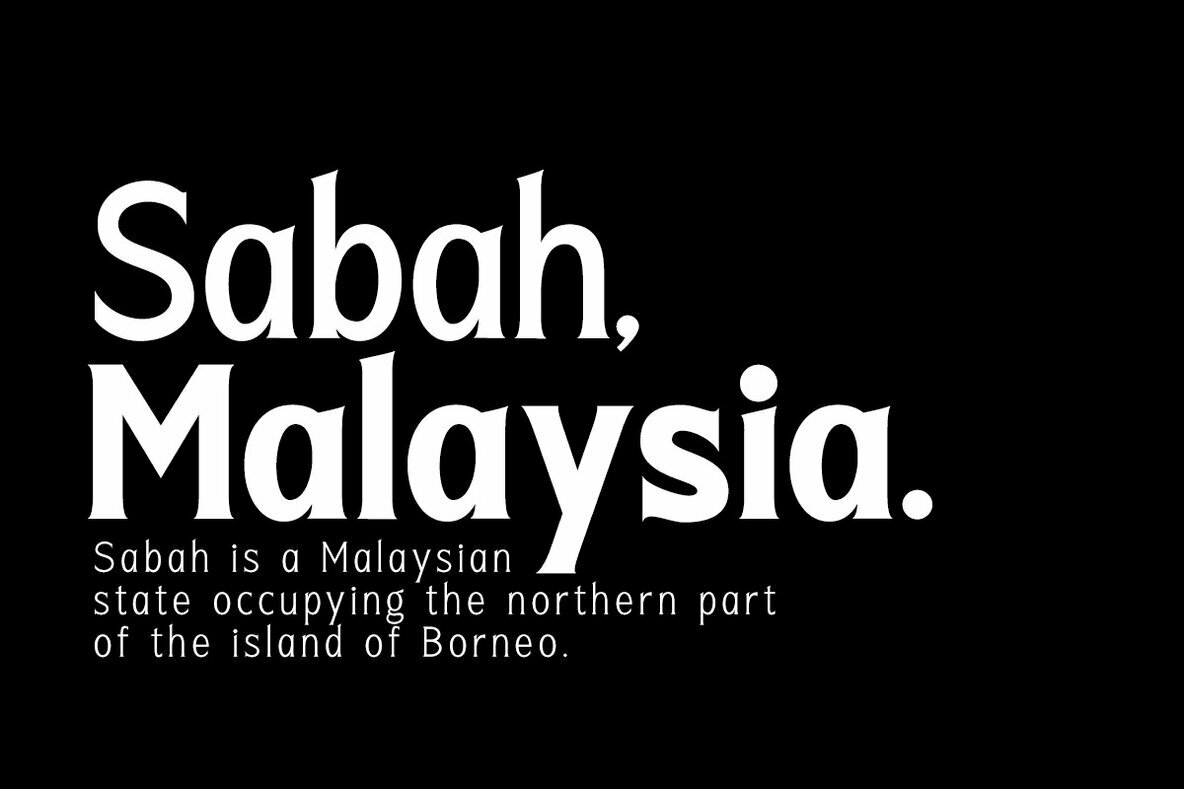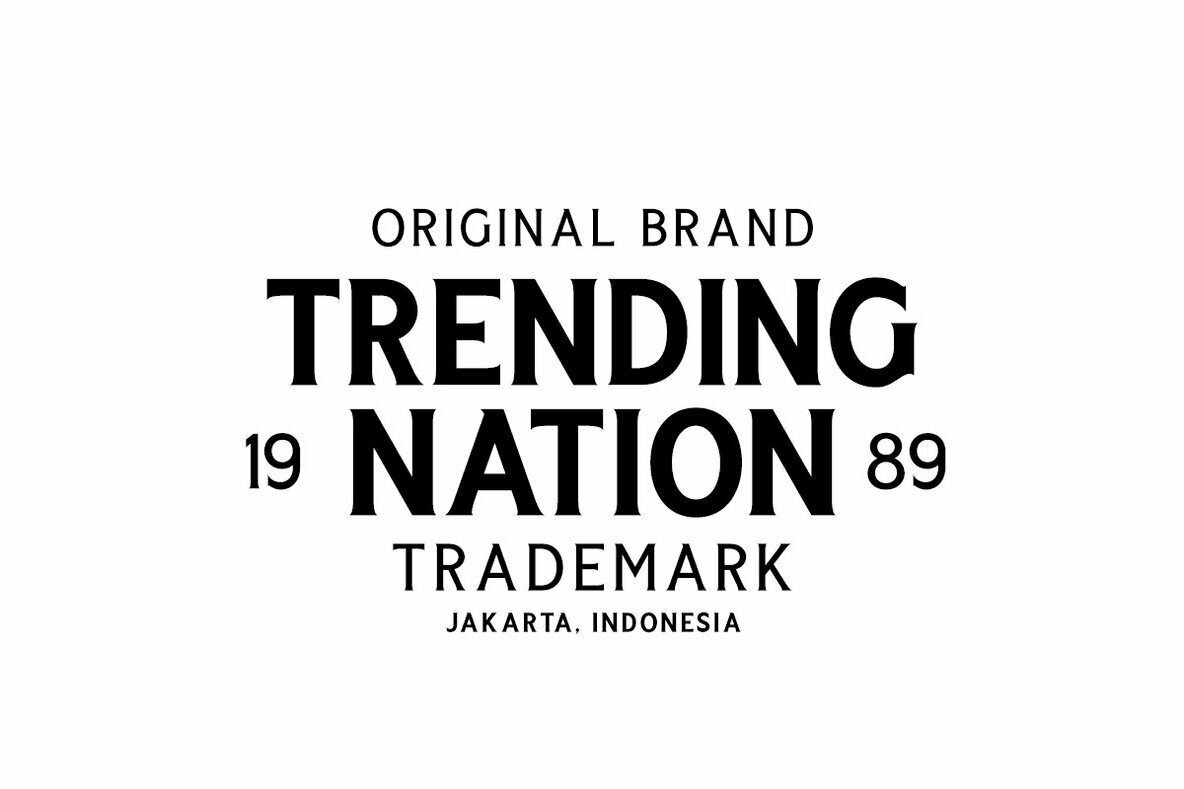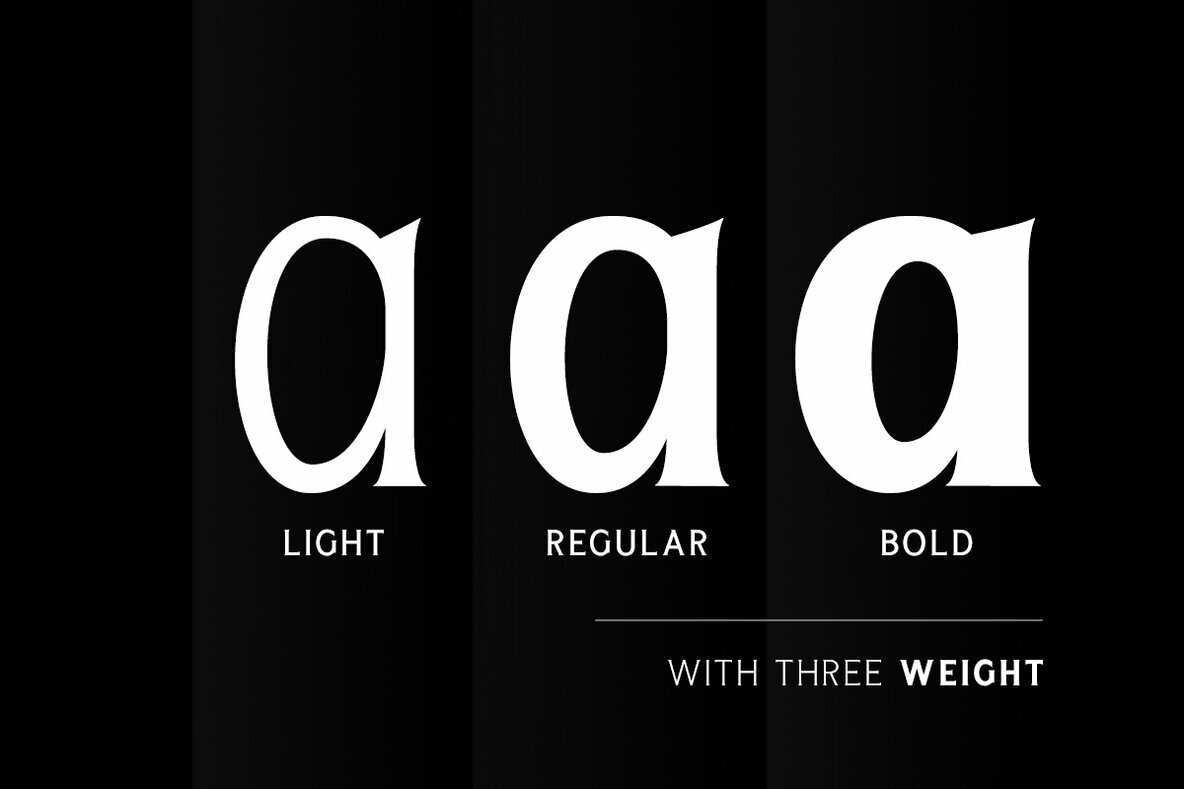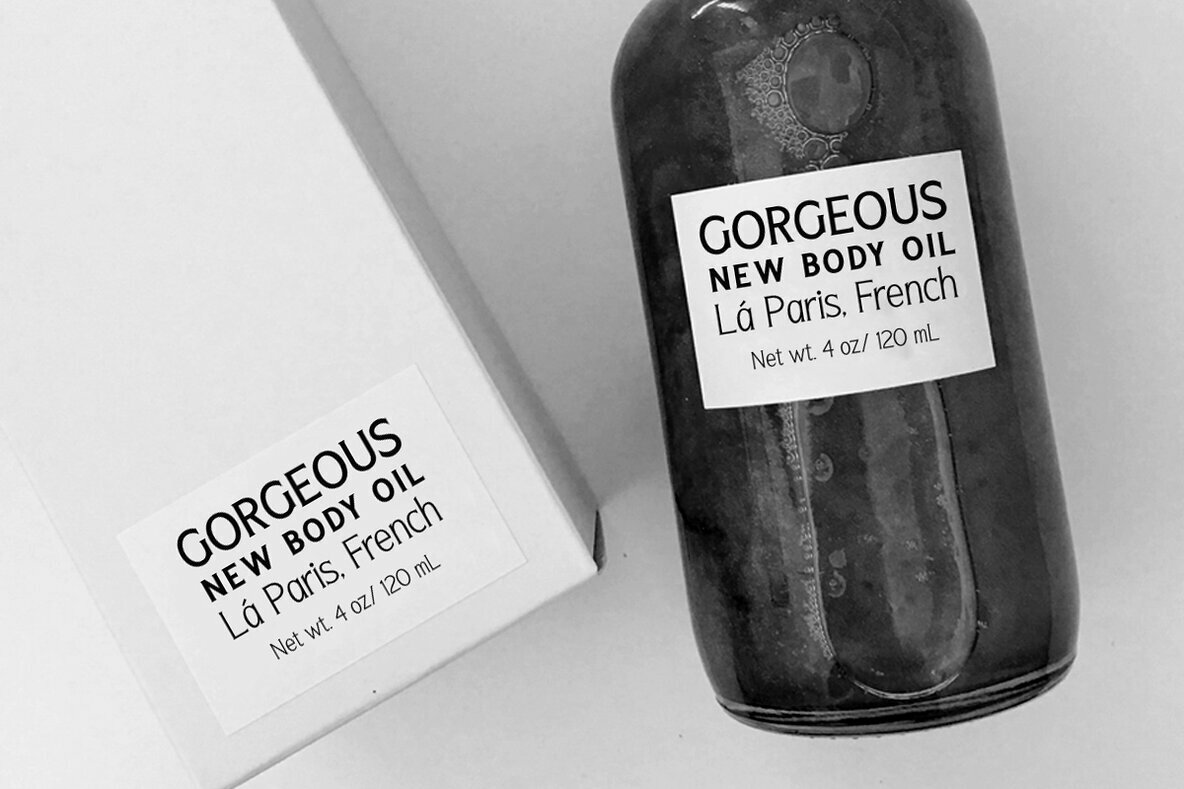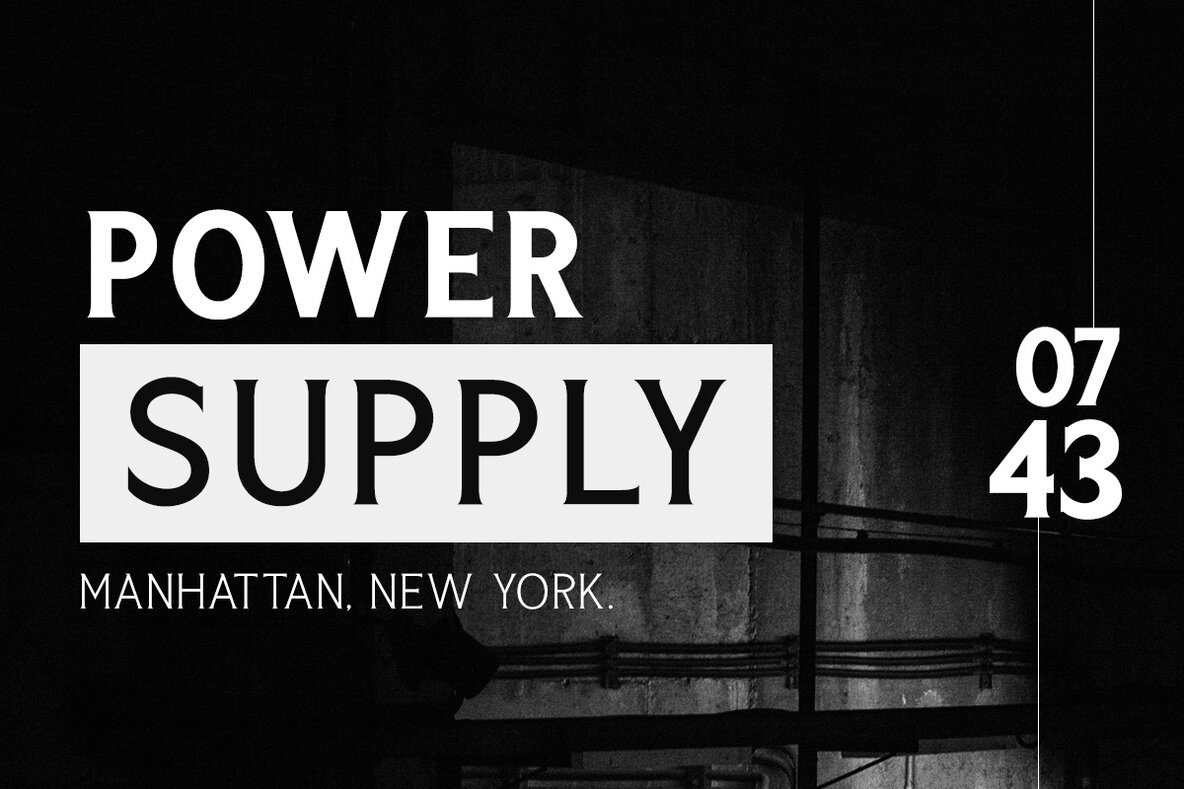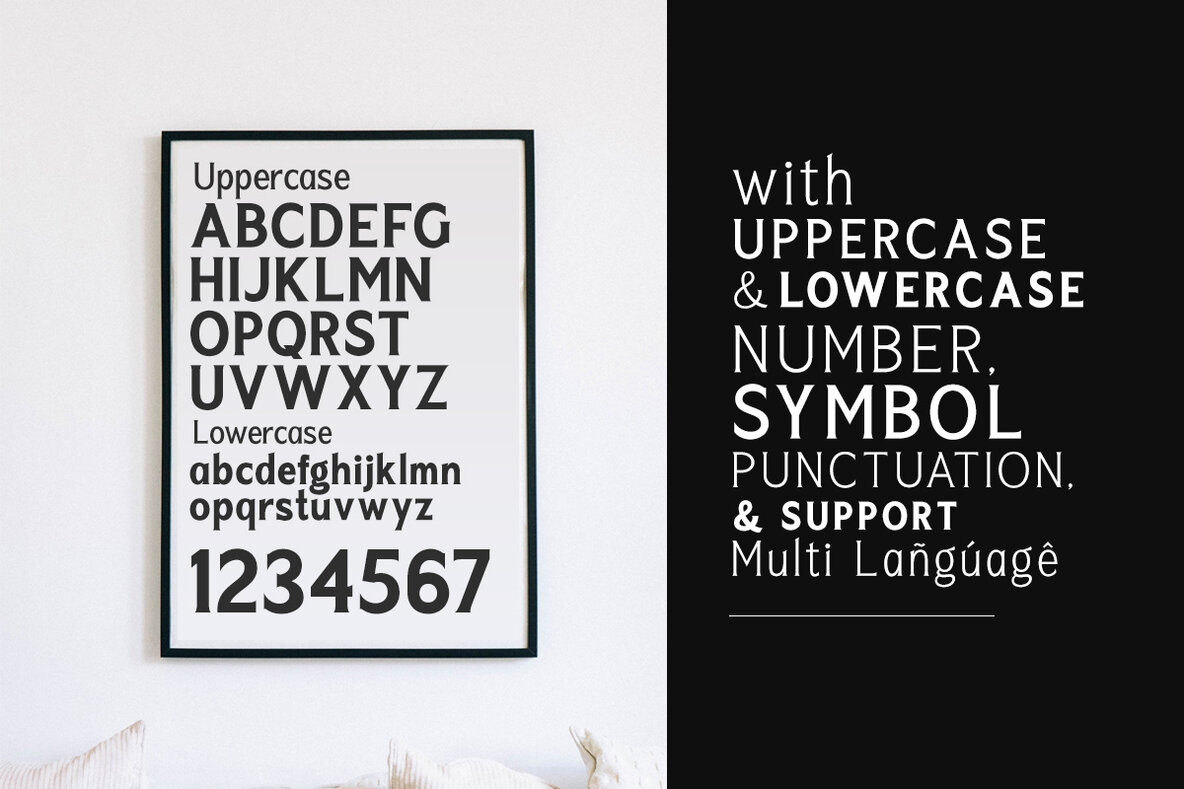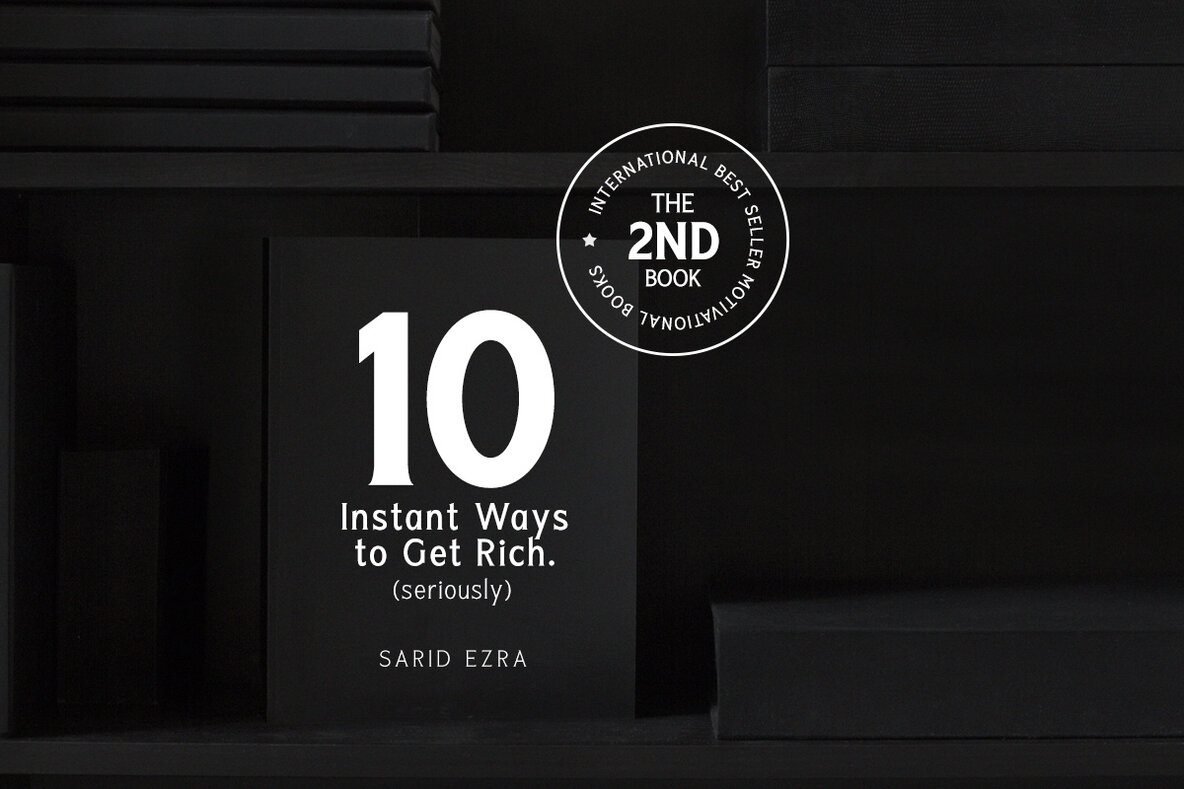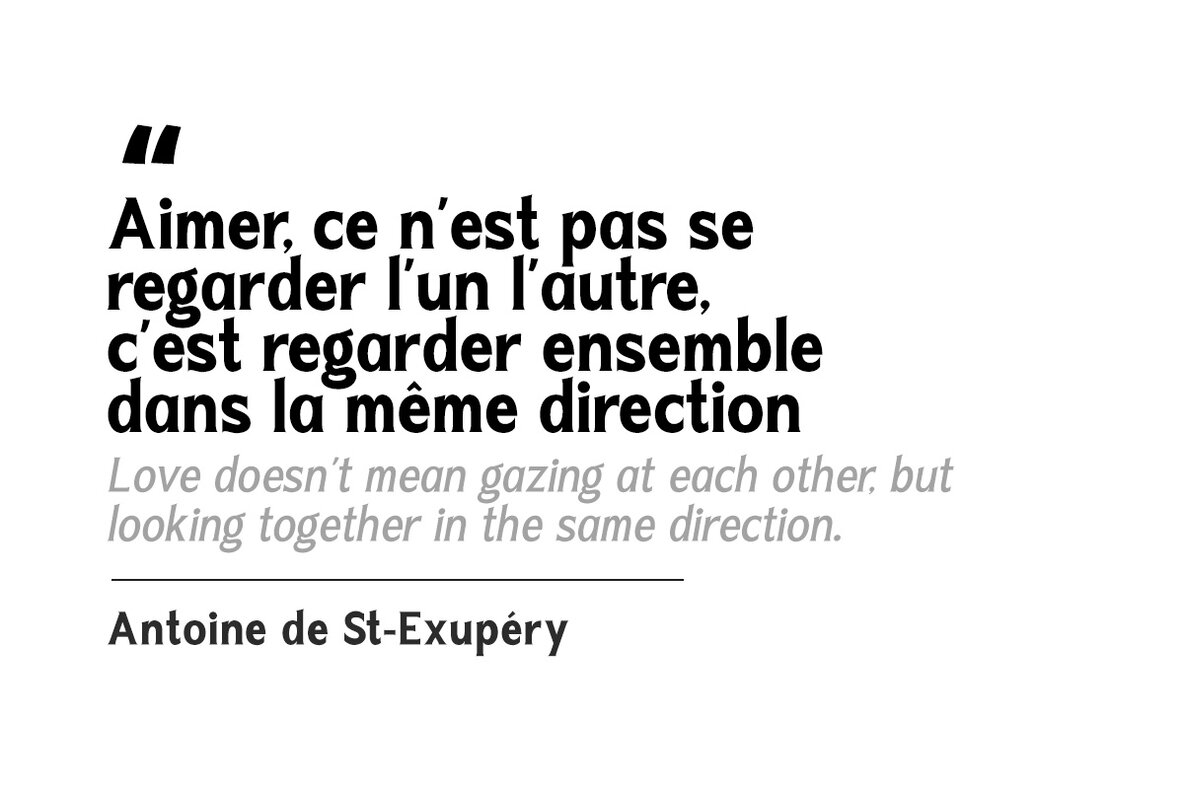
Seriously: A Versatile Display Serif Typeface
Crafted by Letterhend Studio, the Seriously typeface elegantly bridges aesthetics and functionality. Featuring three distinct weights, Seriously accommodates various creative avenues, from corporate branding to dynamic social media designs. Its refined serif style delivers a sophisticated touch to logos, presentations, and print materials.
• Uppercase and lowercase characters
• Punctuation and symbols
• Stylistic set alternates and ligatures
• Multilingual support